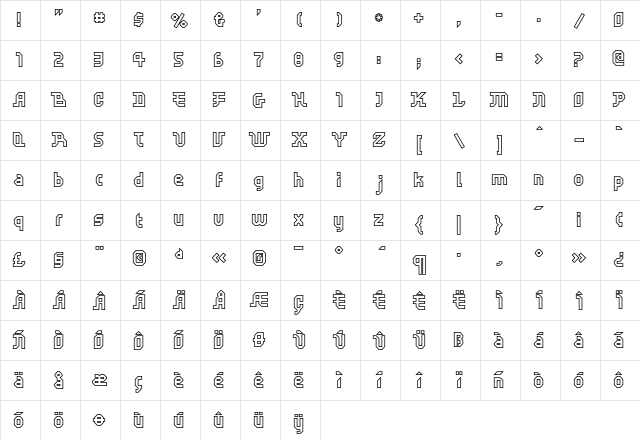
FFScratch-Outline Regular
Design Context for FFScratch-Outline Typeface
FFScratch-Outline brings ornamental detail and strong personality to headlines and identities, where visual impact matters more than quiet functionality.
Font Pairing: Pair with a clean neutral sans-serif for body copy to let FFScratch-Outline's character lead without overwhelming the composition.
Pro Tip: Use FFScratch-Outline exclusively at display sizes — it was designed to be seen, not read at length. Let a neutral companion handle body copy.